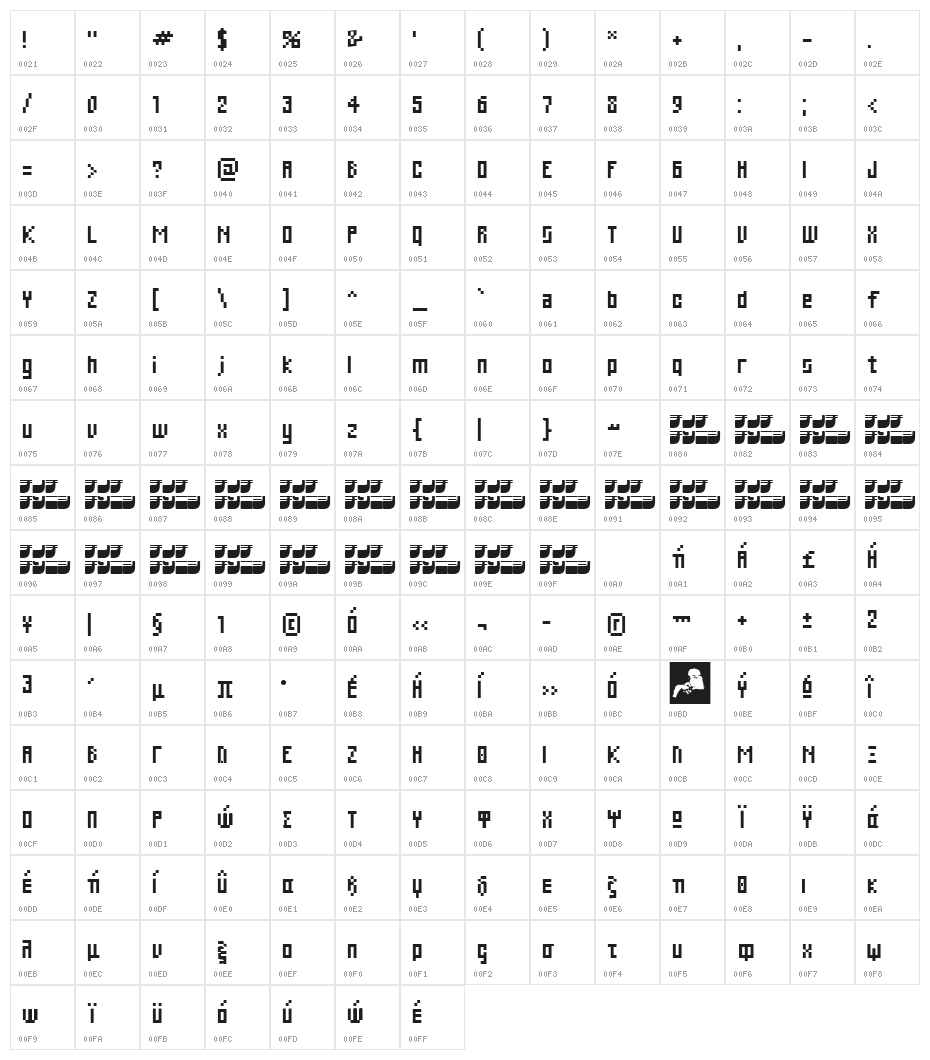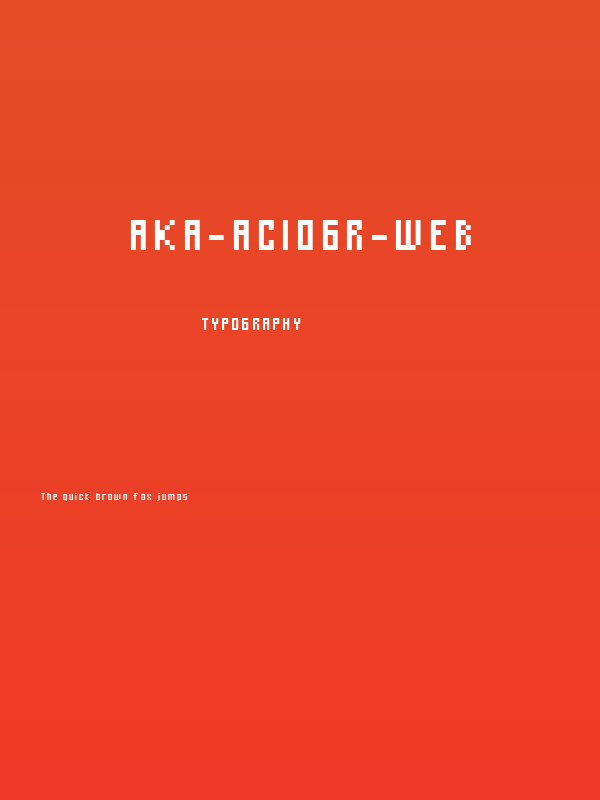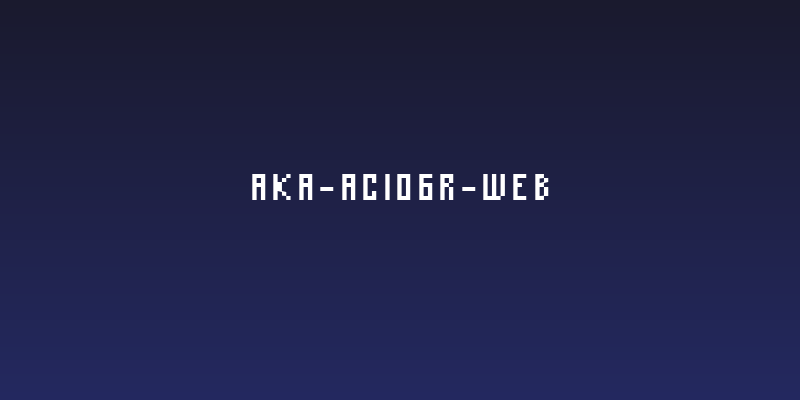
Aka-AcidGR-Web Font
Aka-AcidGR-Web Description
This font features a pixelated, blocky design reminiscent of early digital displays and retro video games. Each character is constructed with a grid-like precision, giving it a distinctly digital and geometric appearance. The uppercase and lowercase letters maintain a consistent height, while the numerals and special characters follow the same structured style. The uniformity in character width and height contributes to a cohesive and orderly look, making it ideal for projects that aim to evoke a sense of nostalgia or a technological theme. Its simplicity and clarity ensure readability even at smaller sizes.
| Overall Style | Retro, Digital |
| Proposed Projects | Ideal for retro video game designs, digital-themed posters, tech-related branding, and any project seeking a nostalgic or futuristic look. |